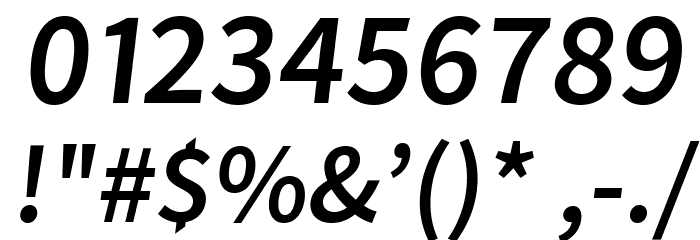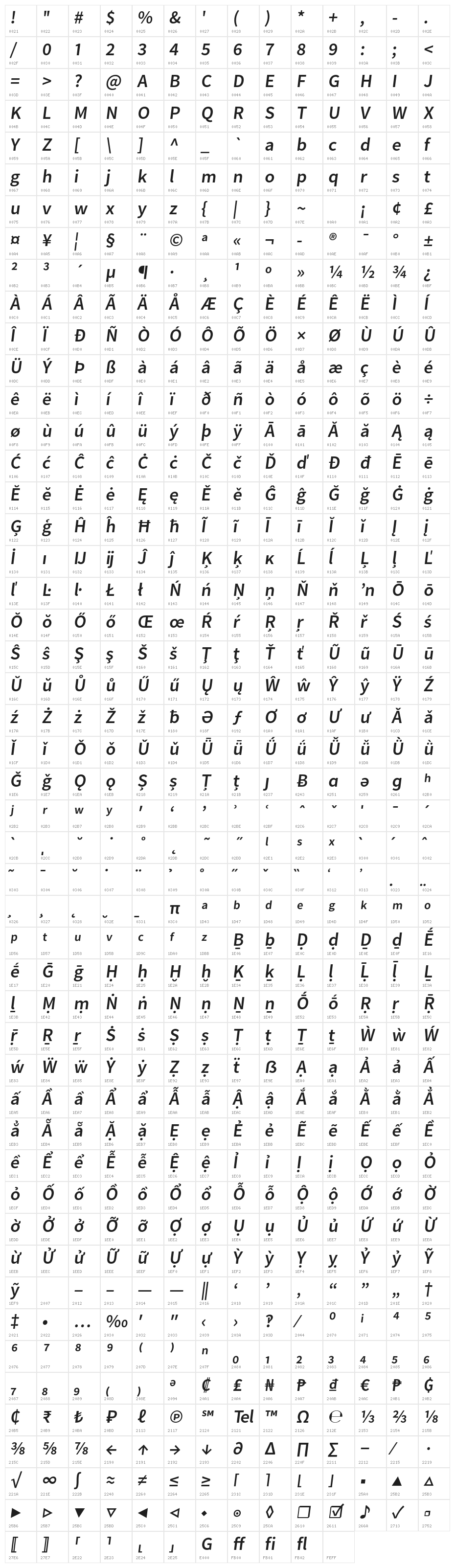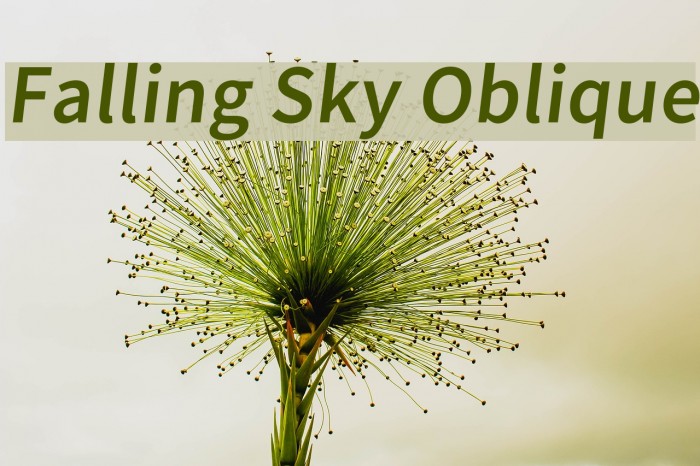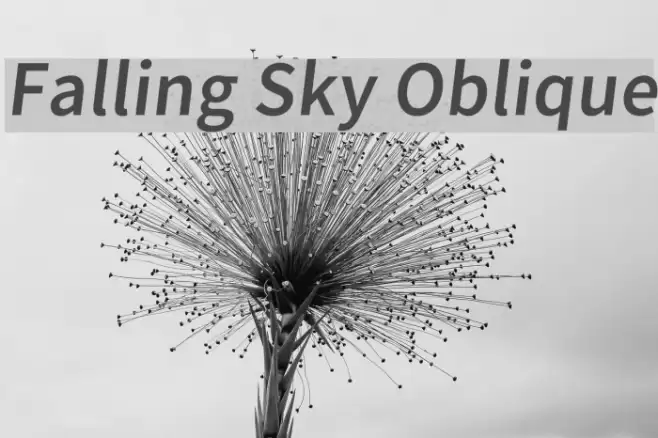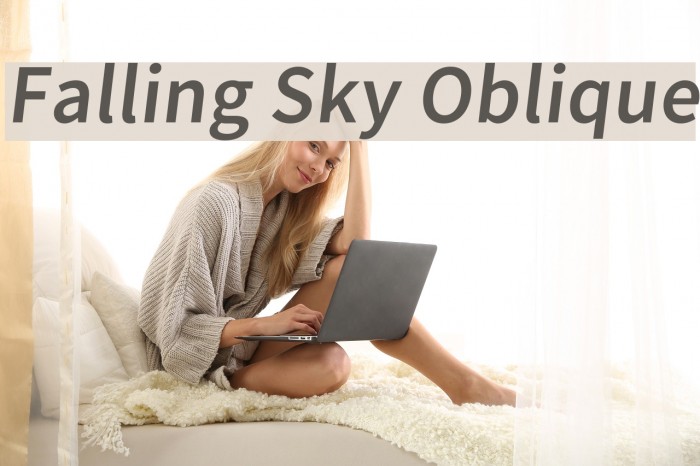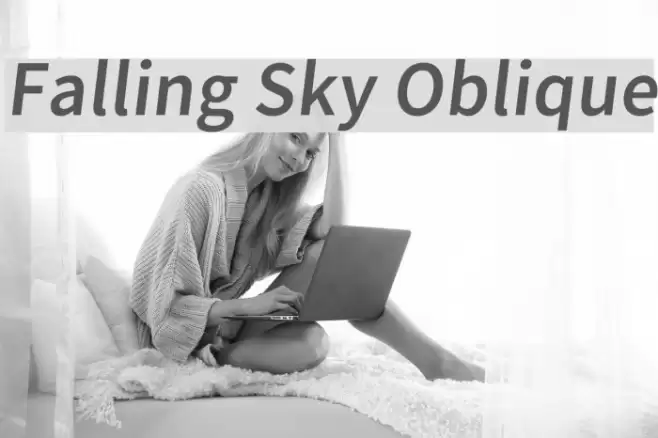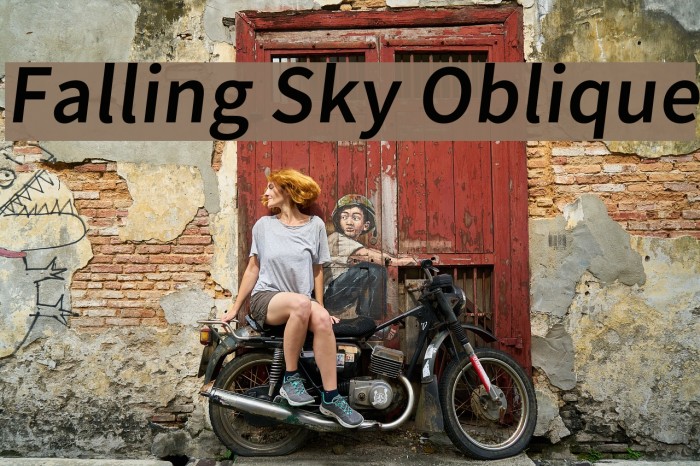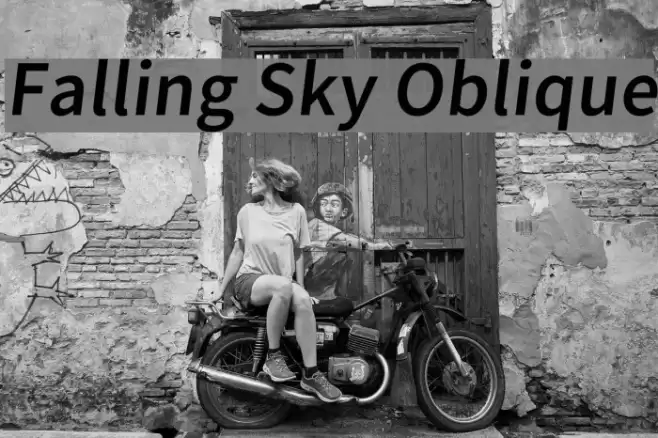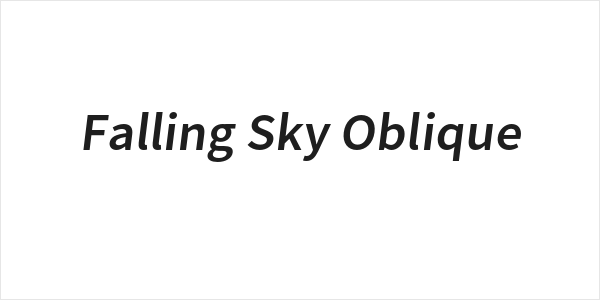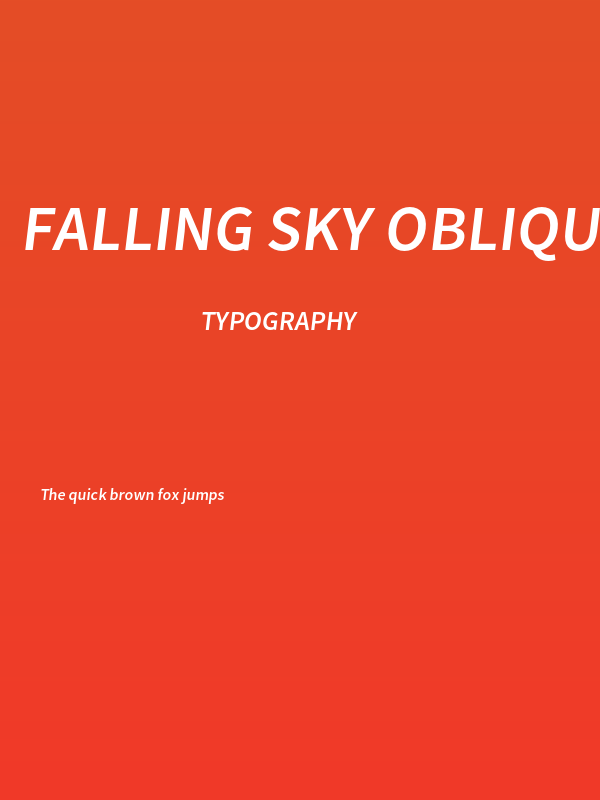
Falling Sky Oblique Font
Falling Sky Oblique Description
This font features a clean and modern sans-serif style with a distinct oblique slant, giving it a dynamic and forward-moving appearance. The characters are well-proportioned with a consistent stroke width, contributing to its readability and versatility. The uppercase and lowercase letters maintain a uniform height, while the numerals are clear and easily distinguishable. Special characters are included, enhancing its functionality for various applications. The overall design is sleek and professional, making it suitable for both digital and print media.